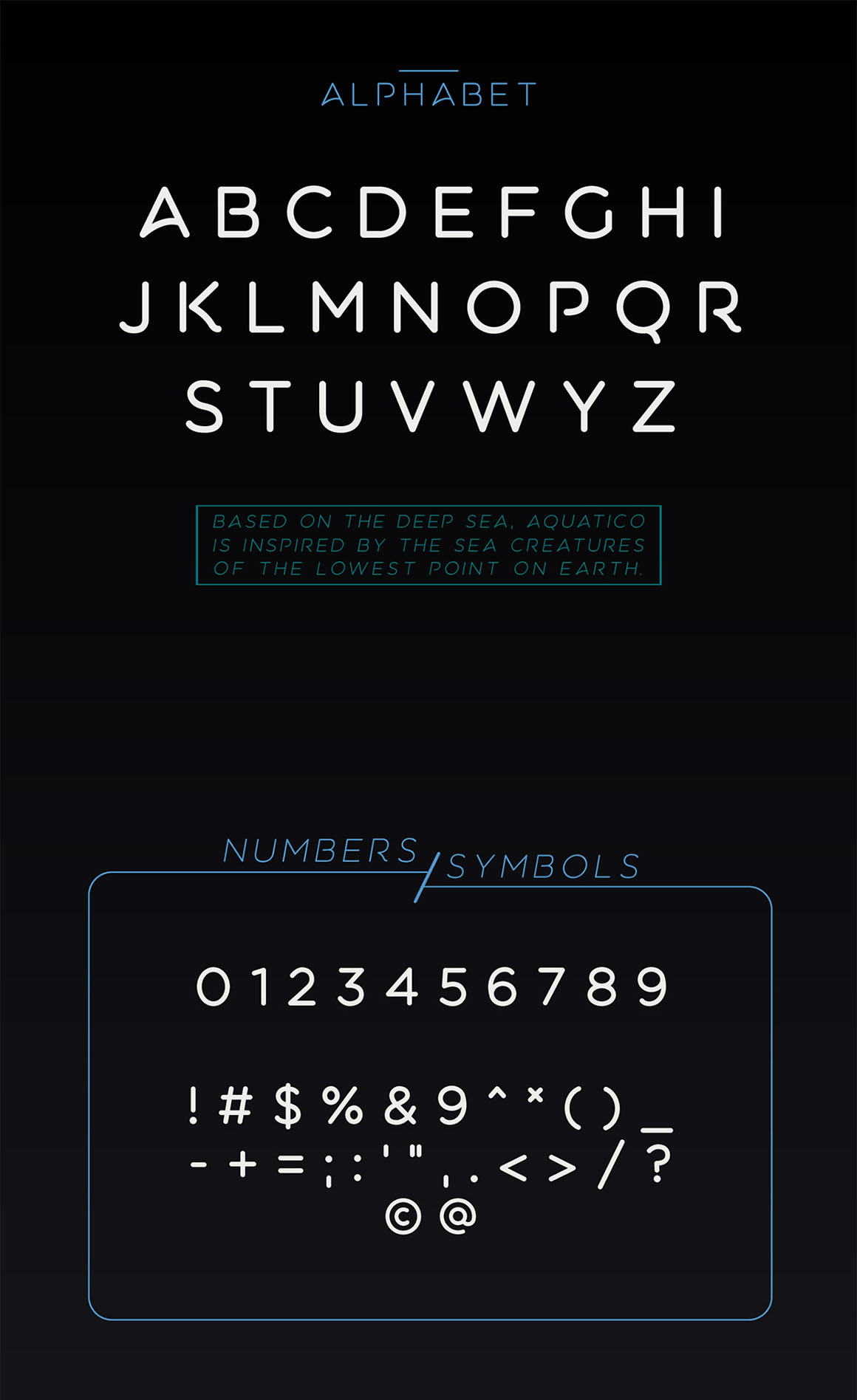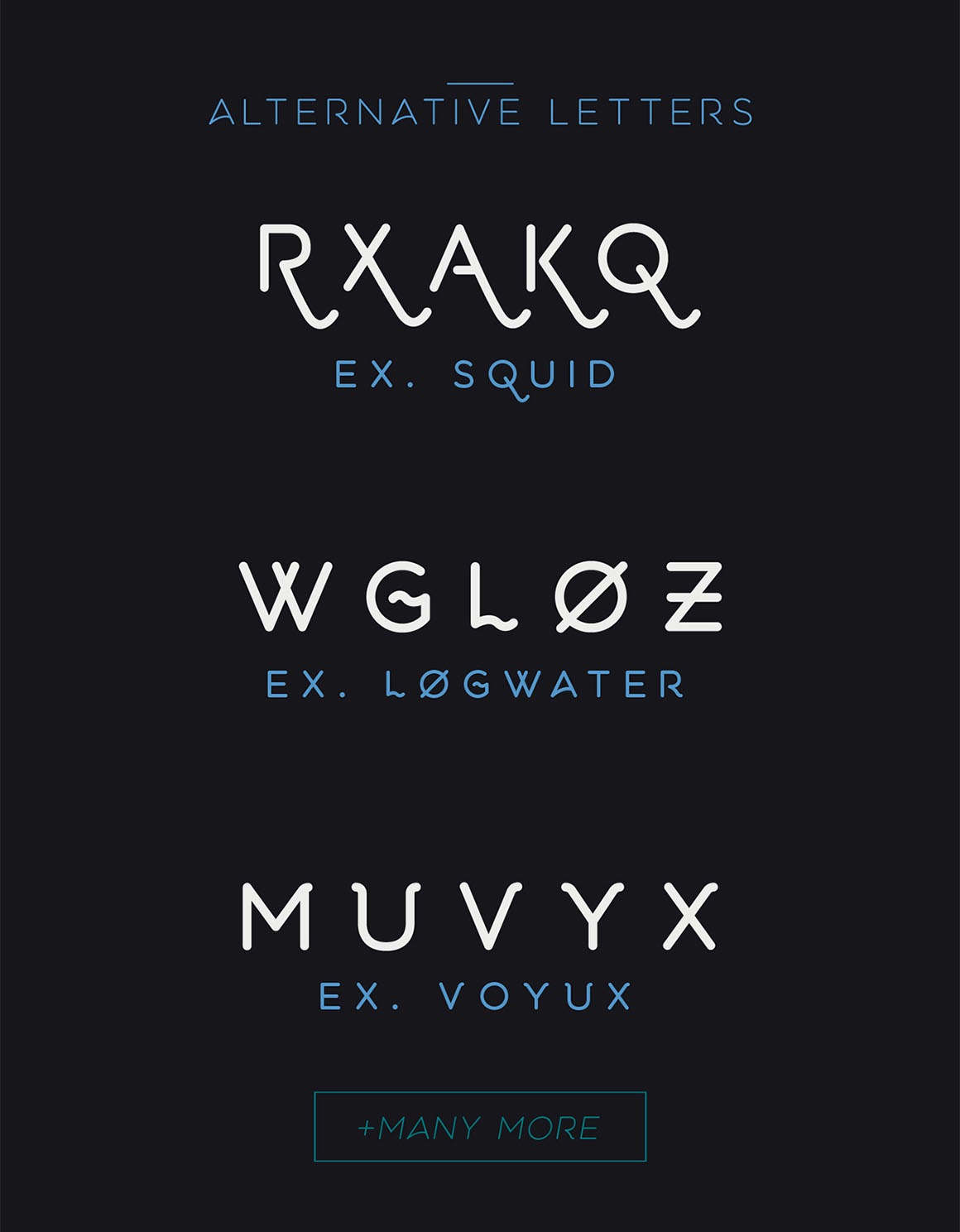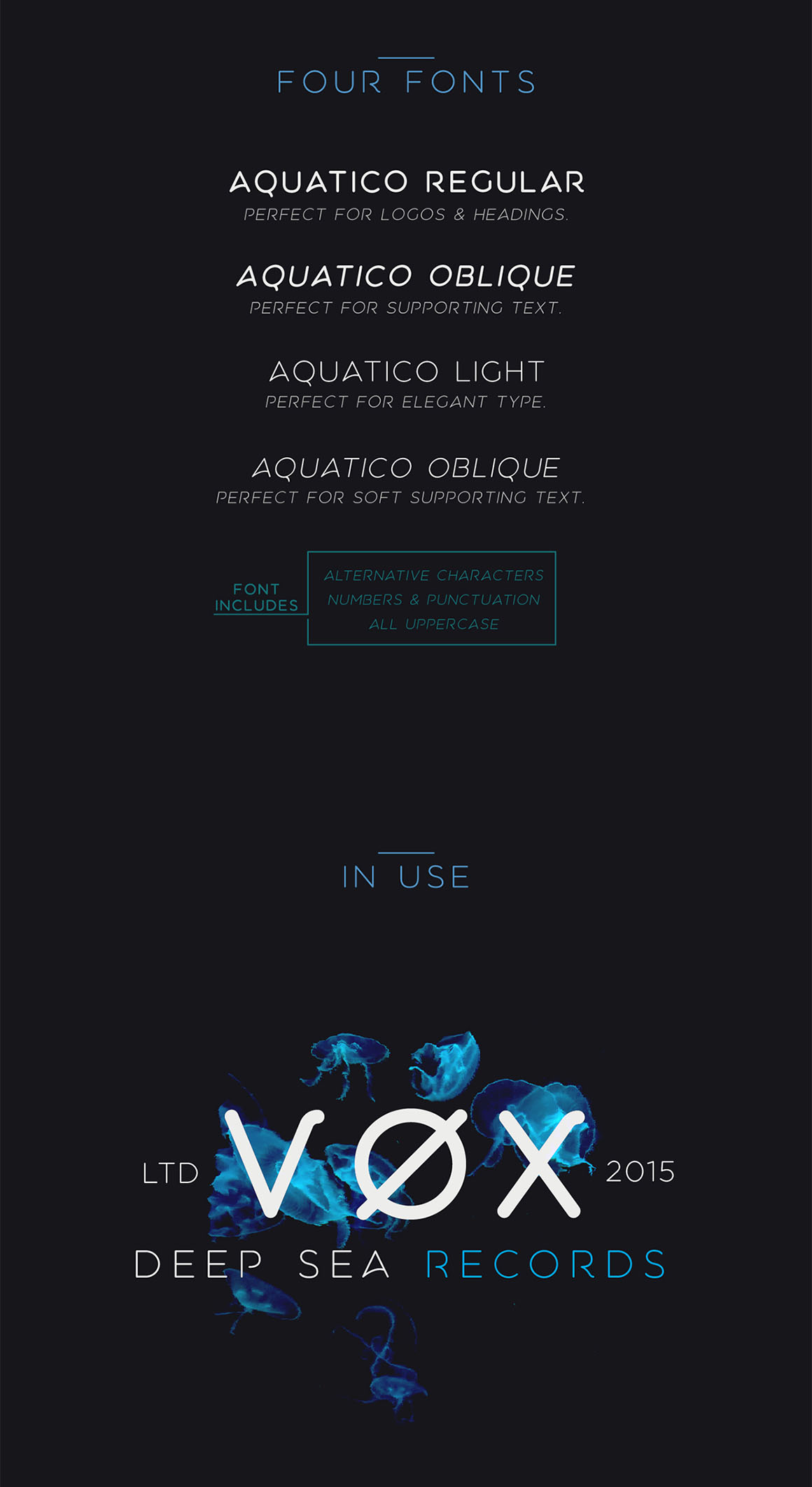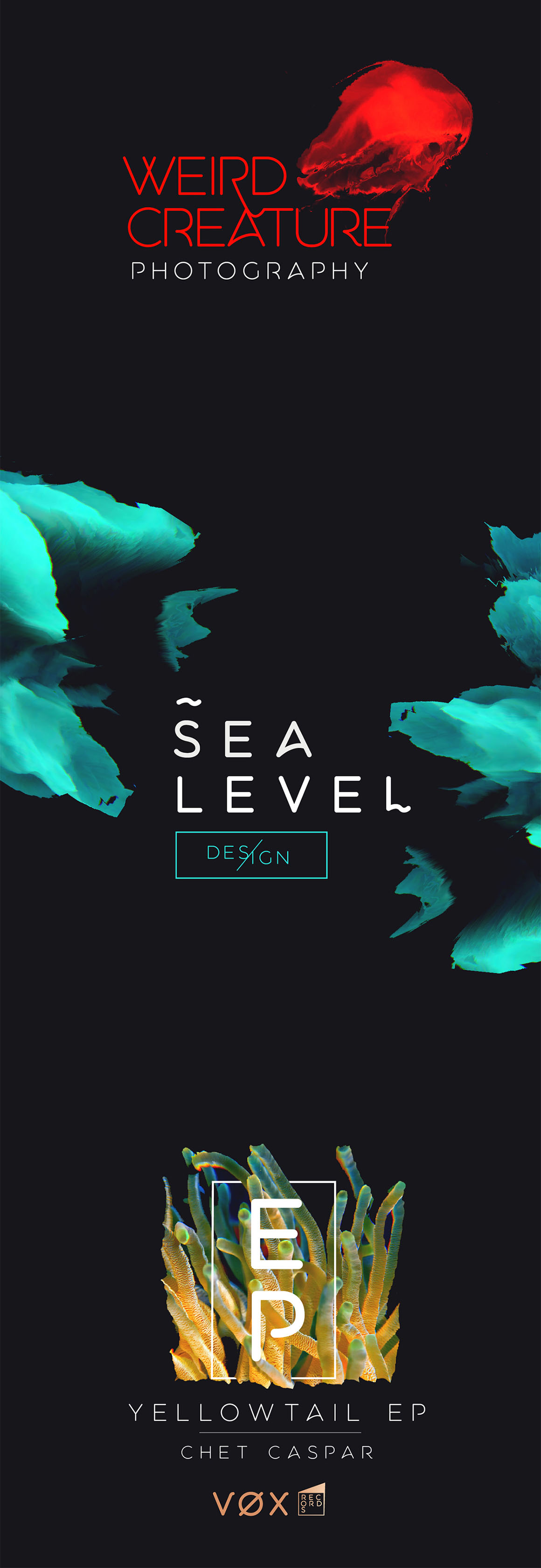
Aquatico – Free Rounded Typeface
This unique custom font is from Andrew Herndon. Modern font with rounded style. Great for your new projects. Download and enjoy 😉